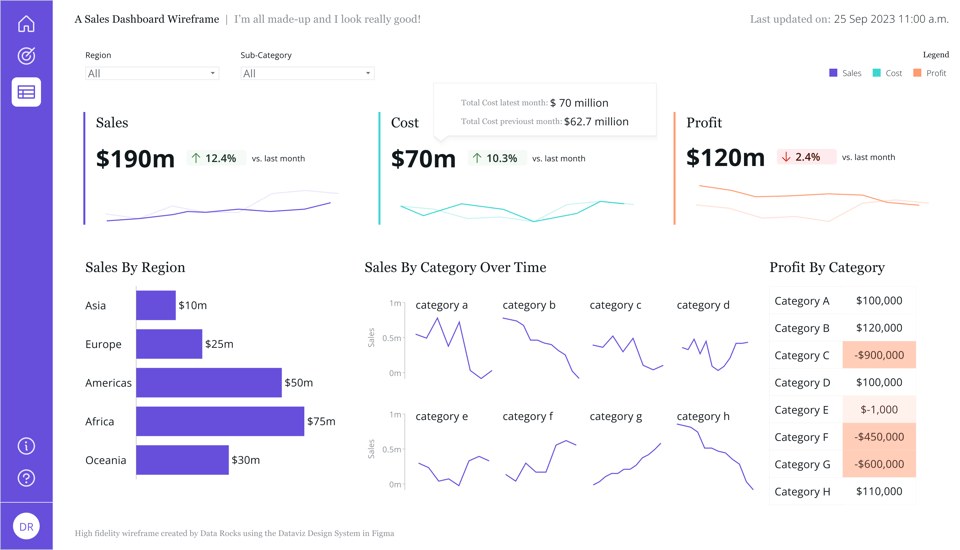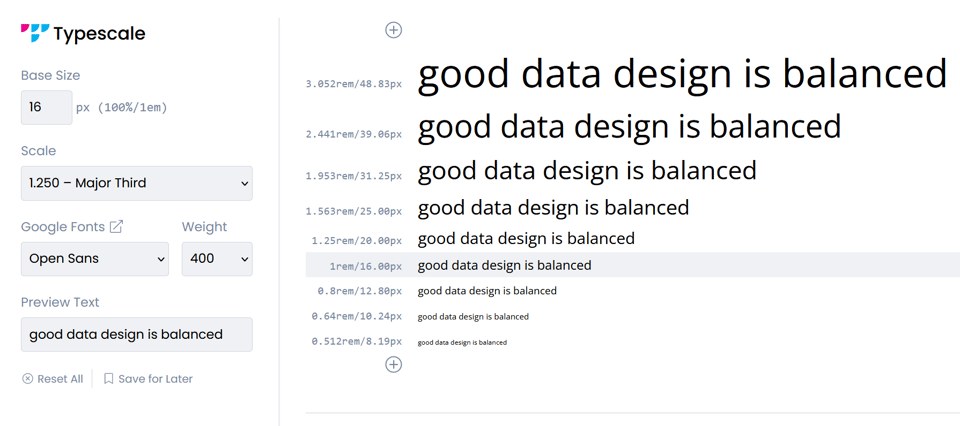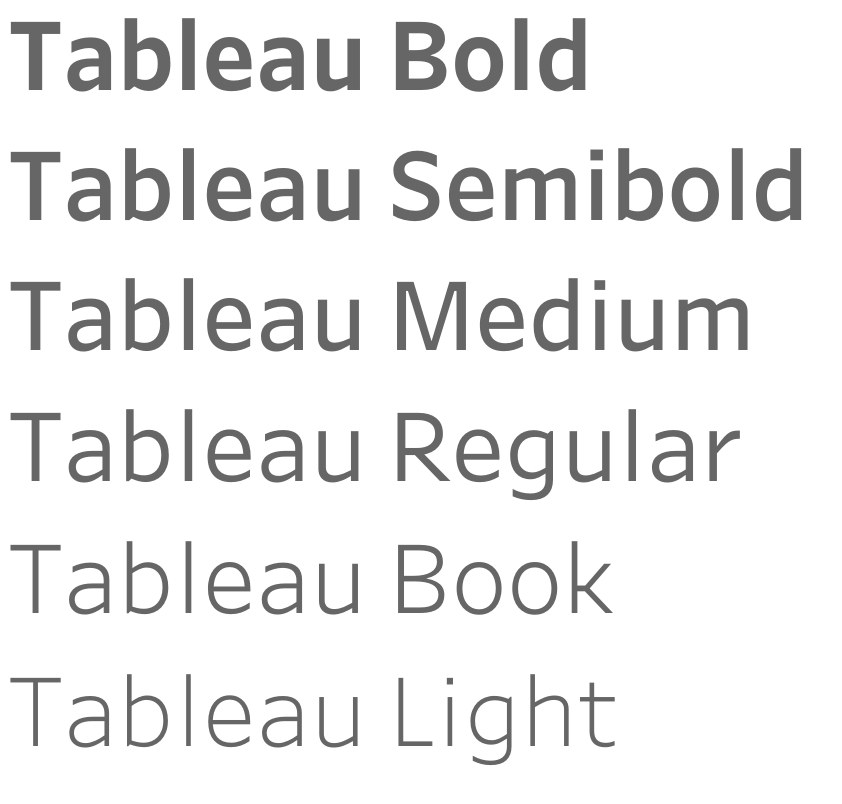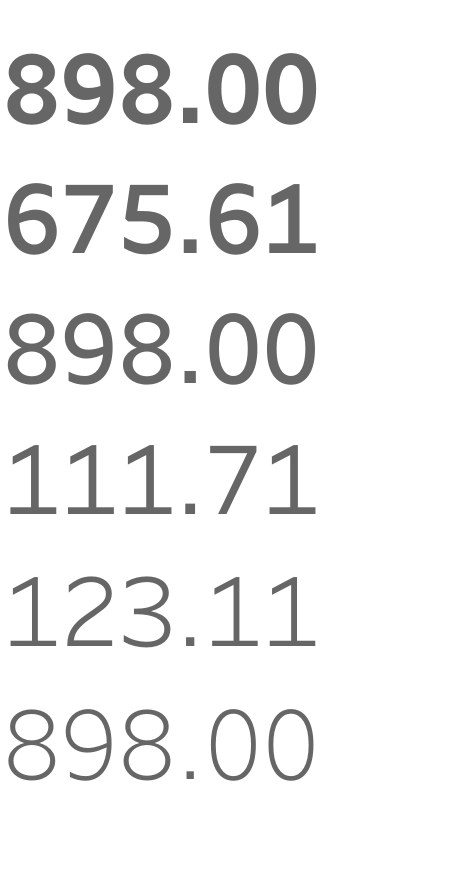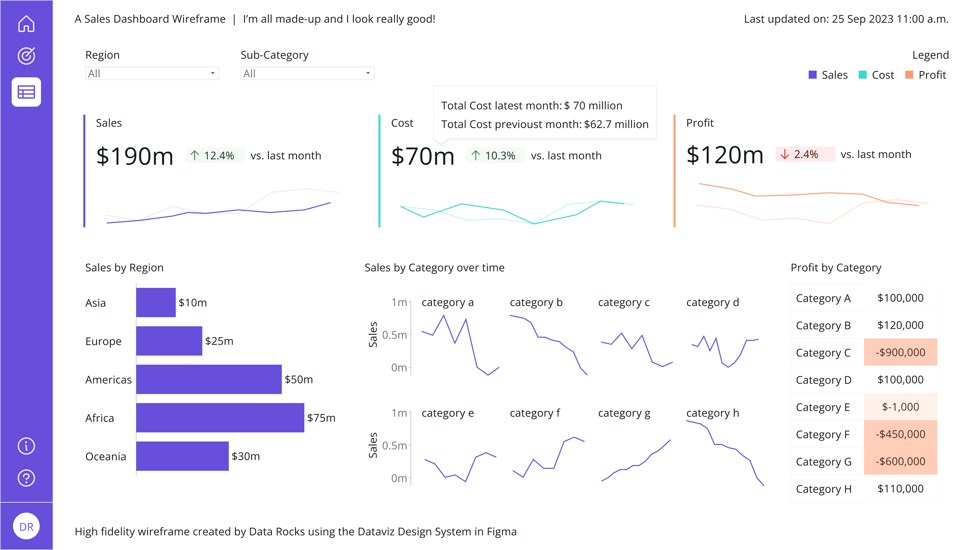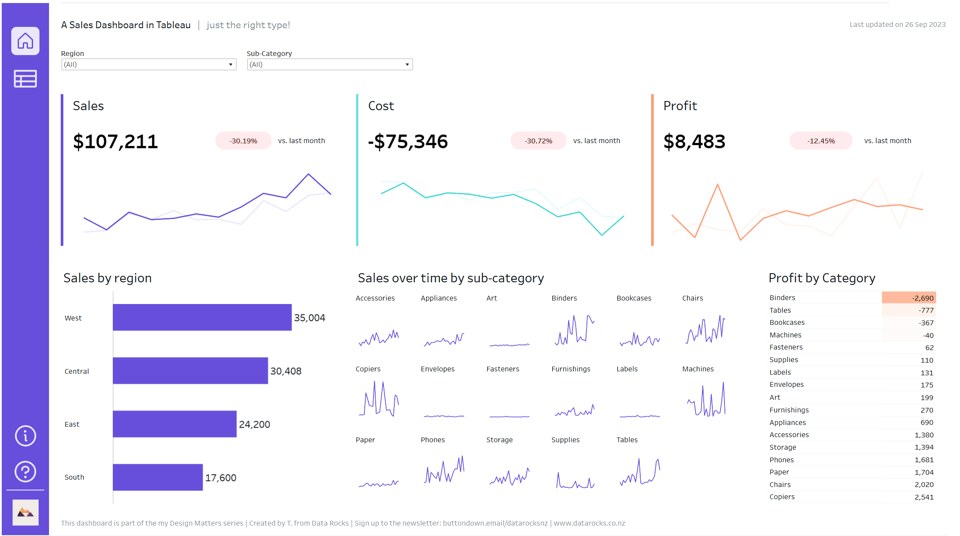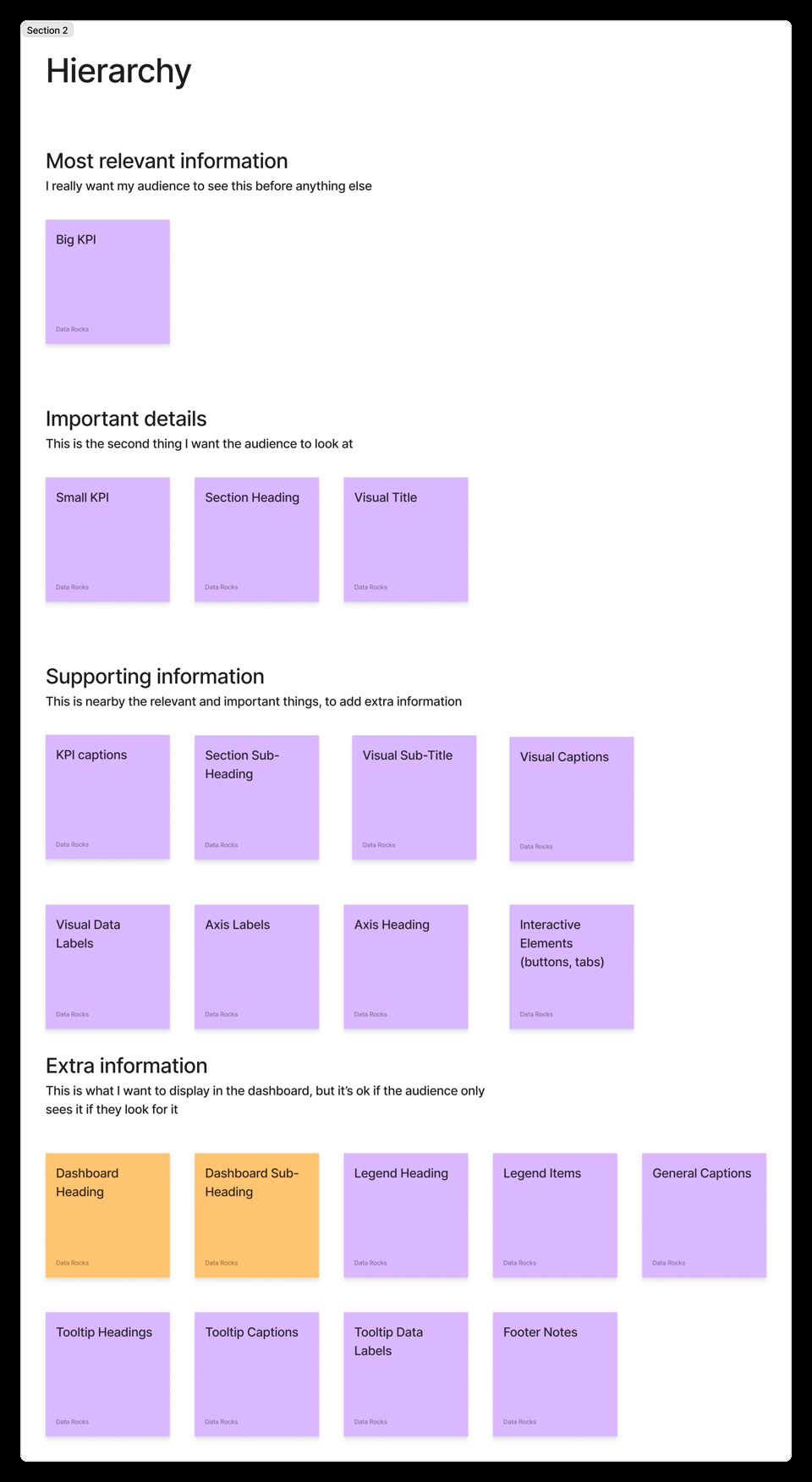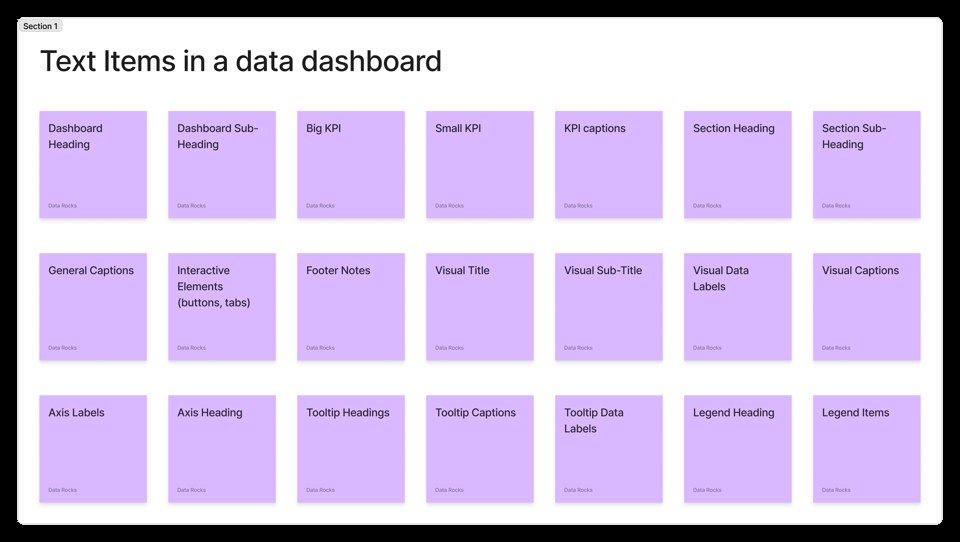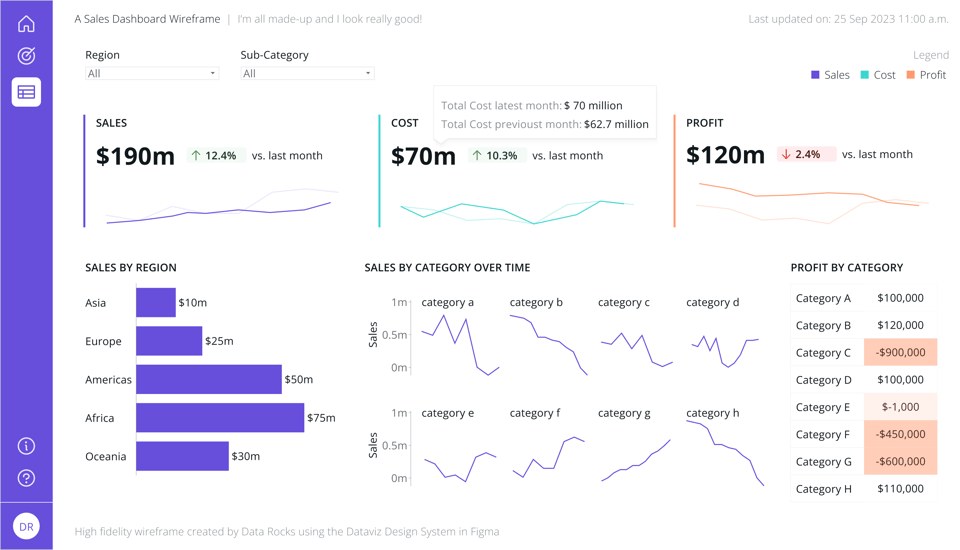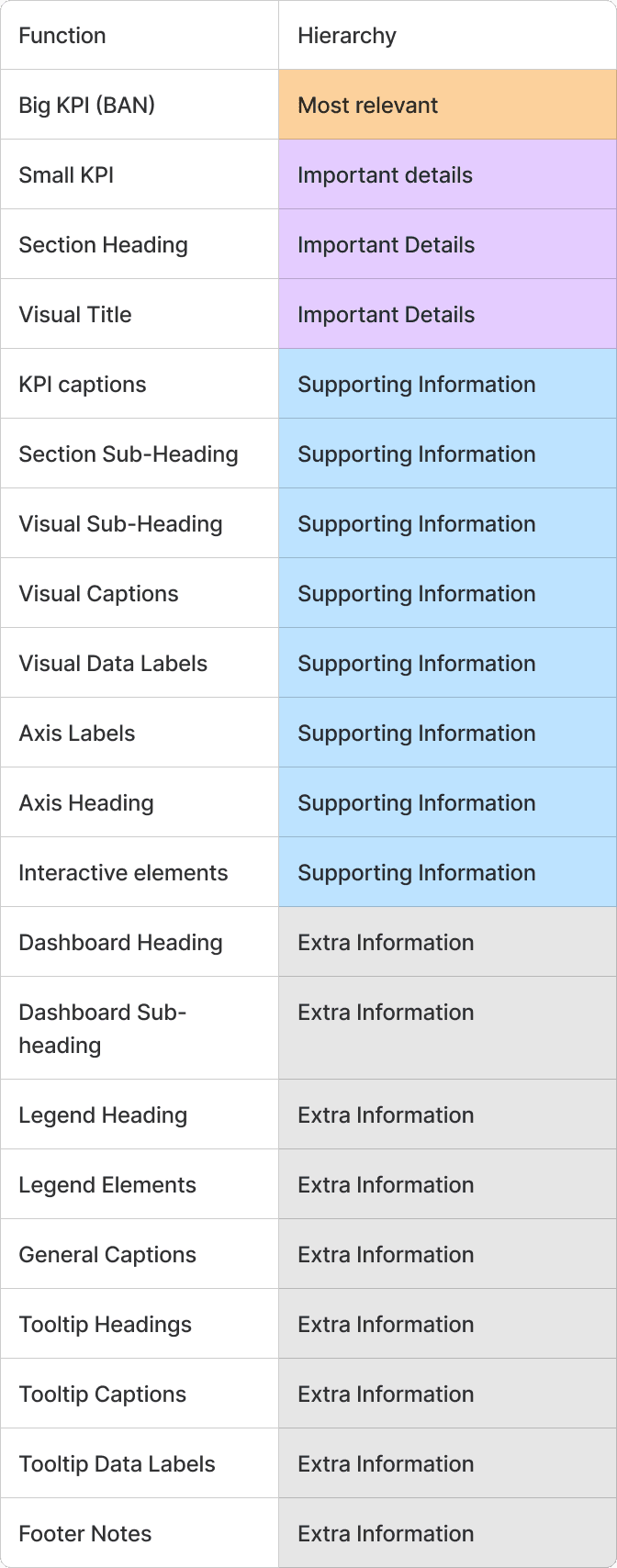
Design Matters #9 - What The Font?! In Practice!
Welcome to issue #9 of the series Design Matters.
In this series, I’ll share with you how design can help your dashboards go from average to awesome.
The goal of this series is to shed light on how design plays an indispensable role in data analytics — not just in making things look pretty but in affecting understanding, communication, and decision-making.
In the last issue of Design Matters, we talked about Typography. I introduced a few of the basic concepts related to typography and explained how I go about choosing a typeface for dataviz.
As a recap, this is what makes a typeface good for data displays, such as dashboards:
• Sans Serif typefaces are more readable than Serif typefaces for data labels, details and numbers;
• The typeface needs to have a good x-height;
• Clear and distinct counter shapes;
• Regular width (not too narrow, not too wide);
• Numbers should be lining and tabular;
• Contains all the symbols you’ll regularly use.
Below, we’ll explore how these guidelines apply in practice, and I’ll share my step by step to define and apply a good type scale to your dashboards.
1. The scale
The first thing you’ll read in any typography guide is about choosing a typographic scale. This means choosing a sequence of font sizes that works harmonically together. In graphic or web design, this also means taking a series of other considerations into account, such as line height or grid structure.
In BI tools, a lot of these decisions are already made by the software, and we generally have much less control over how a typeface will behave in certain sizes. On one side, this takes away the need for a data analyst to decide the smaller things about their typeface. But on the other, this also means we have to work out a type scale sort of ignoring these other elements.
Type scales define visual rhythm and consistency across your dashboard. They work the same way as your colour palette does. By defining a clear scale of sizes you want to use across your visual displays, you ensure consistency and hierarchy.
So, the first step is to choose the rhythm you want to apply to your dashboard.
Think of this as choosing your base set of colours — we’ll then assign meaning to each of the sizes and variations.
There are different options when it comes to scales. The best approach is to start with tools such as Typescale or the Figma plugin Typescales
The Typescale web tool. On the left, settings: a 16px base size, a 1.250 major-third scale, Open Sans at weight 400, and the preview phrase “good data design is balanced”. On the right the phrase is repeated at nine steps of that scale, each labelled with its size from 3.052rem — 48.83px — down to 0.512rem, with the 1rem step highlighted.
You’ll notice that you have different scale options to choose from. The scale options are a multiplier you use to calculate the size of your next font based on the previous one. So, if you start on a base of 16px as your font size and apply a Major Third scale of 1.250, this means your next size up will be 16px multiplied by 1.250, giving you 20px. The same goes for making smaller sizes, but you divide your font size by the multiplier. The next size down, starting from 16px on a scale of 1.250, would then be 12.8. Notice how this is a decimal number? While in design tools you can have font sizes like this, in BI tools you’ll usually just round them to the next whole number — in this case, 13.
This is how a harmonic type scale is formed.
If all this sounds too complicated, bear in mind that you already use type scales, even if you’re not aware of it. Whenever you decide a title is bigger than a subtitle, you are creating a scale. What this does is add a bit more science and replicability behind those decisions.
You may also be wondering why these are the scales that designers everywhere use. And they come from music! It seems we understand rhythm the same way, be it with our ears or our eyes. You can read more about it here.
There isn’t a clear guideline of which of these scales works best and when. This is where your aesthetic decisions come in. The important thing is to have a scale — whichever it is. Keep in mind that the bigger your scale number is, the more emphasis you give to the different hierarchy levels of your type scale.
I have a personal preference, though:
• For dataviz work that is more creative and heavy on graphic design (infographics, posters), the most basic scale, called Major Third or 1.250, works quite well.
• For dashboards, typography plays a bigger role in enforcing hierarchy within a constrained space — which means that more emphasis is needed. I tend to go with a scale based on a half-golden ratio, or 1.309.
• I also tend to start at 16px and choose 3 sizes above this base and 2 sizes below. This gives me a total of 6 font sizes to choose from and play with. My preferred range using this set-up is between 36px for the largest size and 9px for the smallest size.
Design Matters has already covered quite a bit about the decisions we have to make as dashboard designers. I hope you enjoyed learning more about typography!